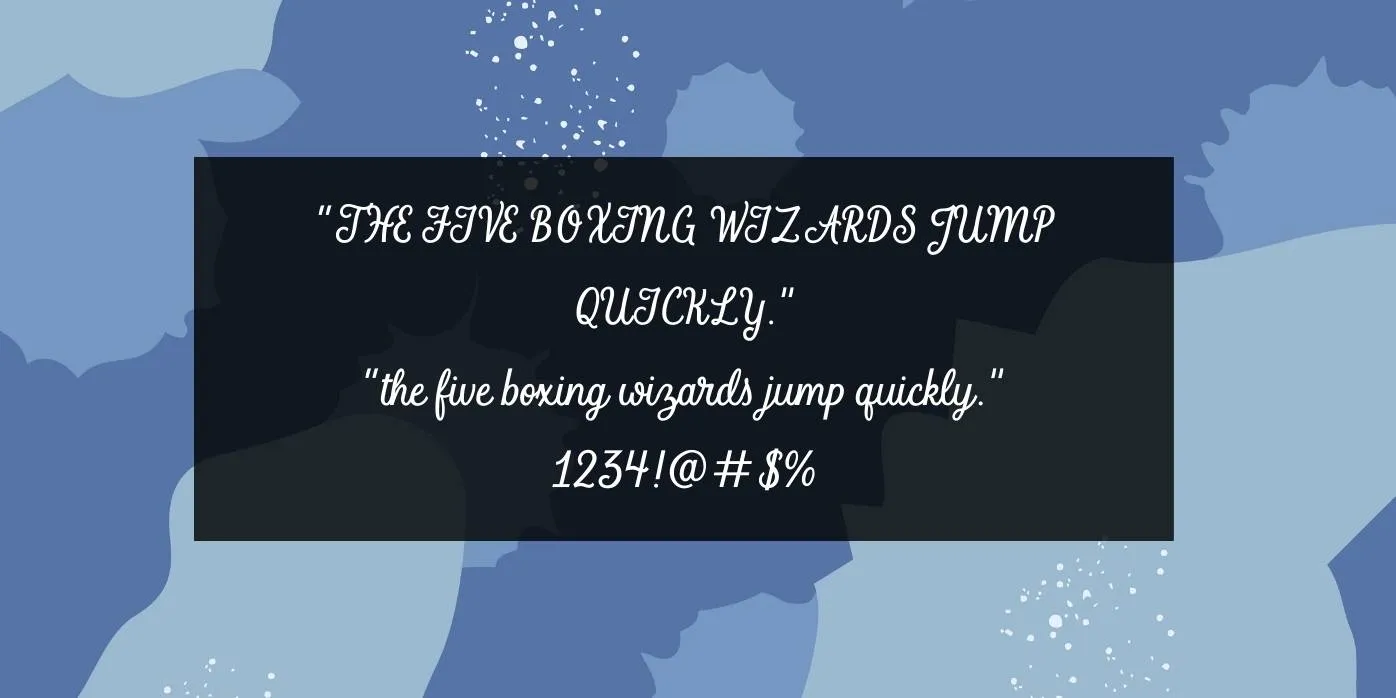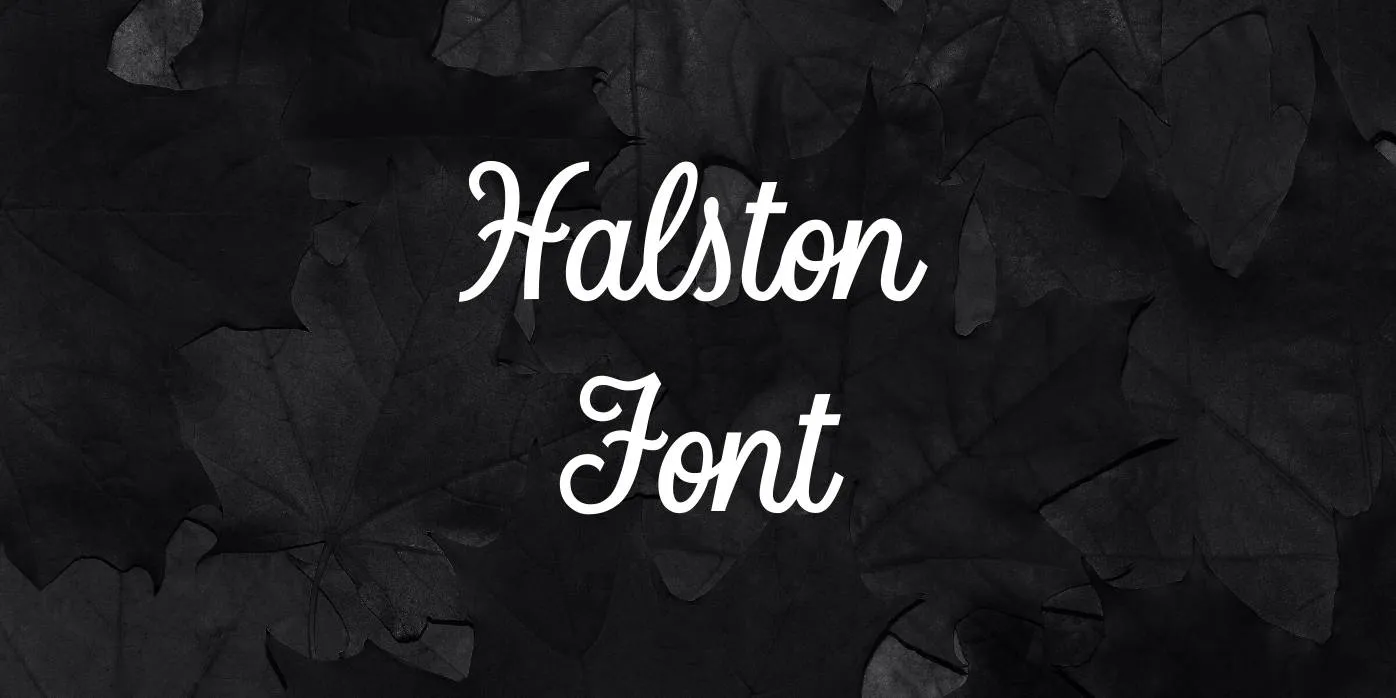
Halston Font
In this article, we introduce Halston Font which belongs to the script family. This typeface was designed by Danie Type Foundry. The design of this family is inspired by the work of American fashion designer Roy Halston Frowick. This script typeface has a classic and timeless look that makes it perfect for fashion, luxury, and lifestyle brands.
Halston Font comes in 4 weights (light, regular, bold, and black) with matching italics. It also includes a set of small caps. Its copy-and-paste function is perfect for various designs. This beautifully designed typeface will make your text stand out.
You can also use the monotype corsiva font which is closest to this font family. If you are looking for a stylish and modern font for your next project, then Halston Font is a great choice. The online generator tool of this typeface is well suitable for a lot of classic designs.